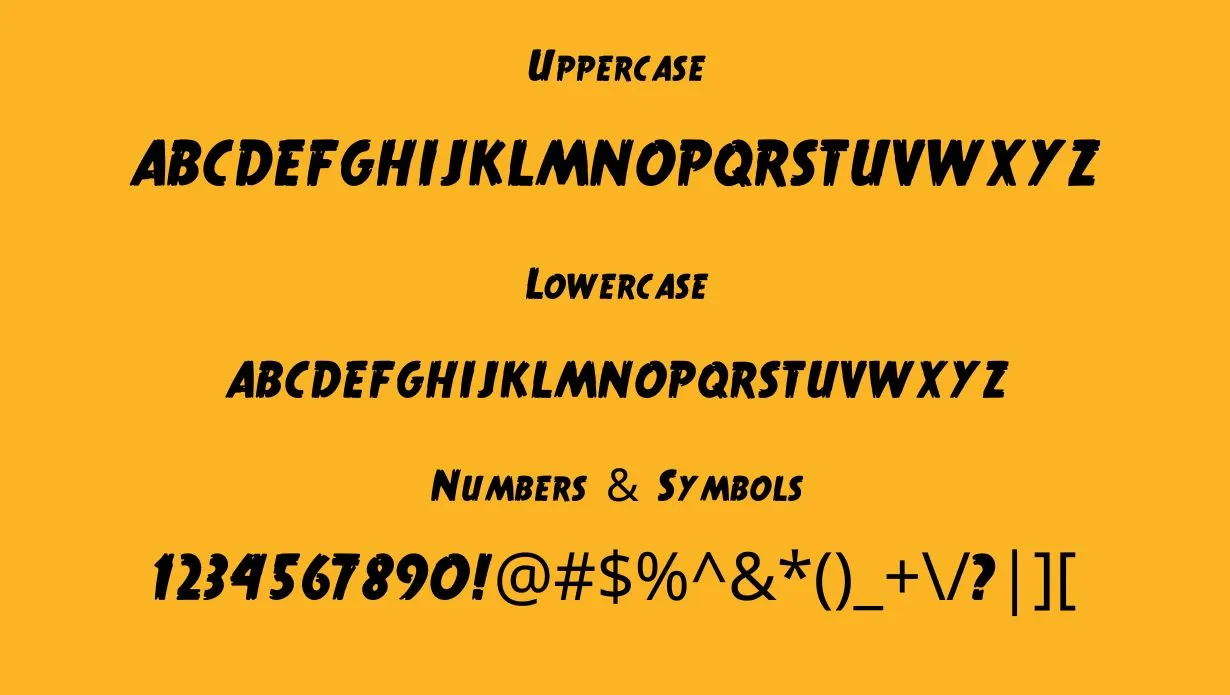
As you can images from the name of this typeface True Crimes Font is a fancy type of Horror Font. This stunning font was designed by Walter Velez in 2002. You can make attractive logos and titles for movies and other TV shows or web series by using this font. It has amazing features as it has 65 characters, 68 glyphs, and 1000 units per Em.
| Name | True Crimes Font |
| Designer | Walter Velez in 2002 |
The font’s weight is Semi-Bold and its width is medium(normal). Unicode supported BMP only. This font also supports file formats True Type Font and Open Type Font so you can easily download it on various devices for use such as Windows, PC, and Linux.